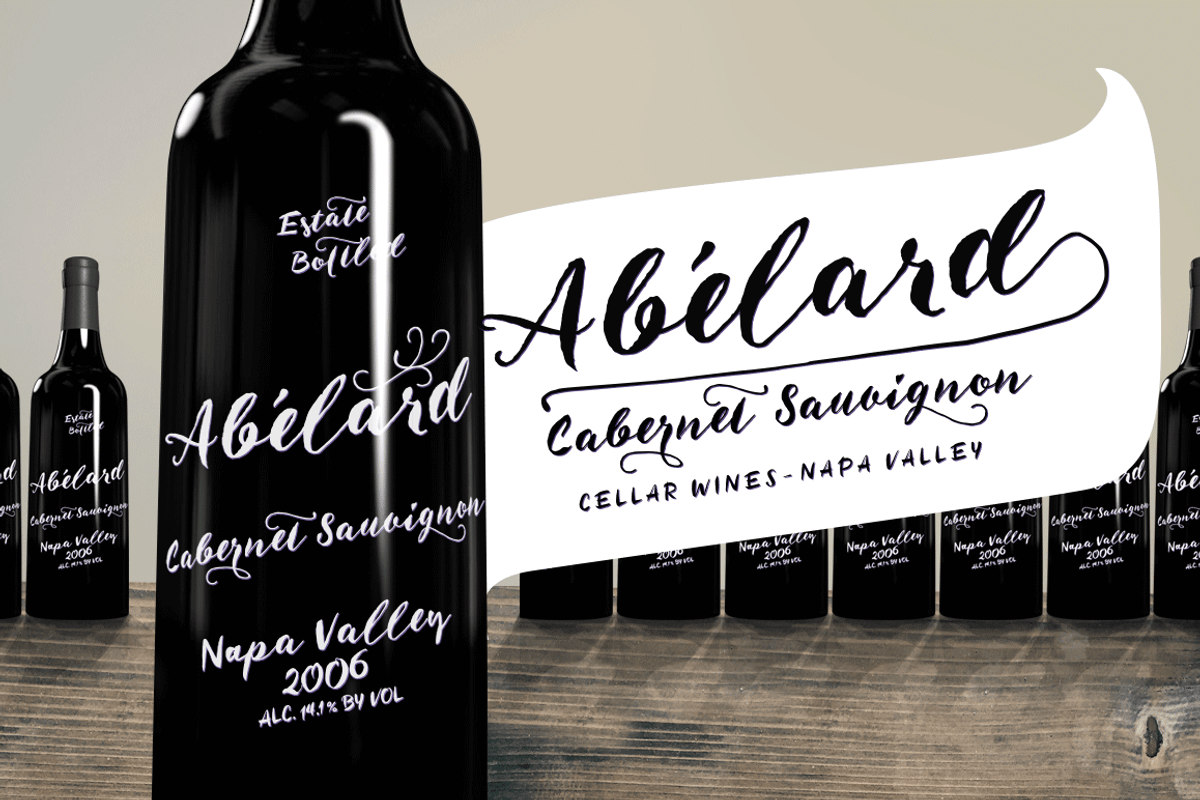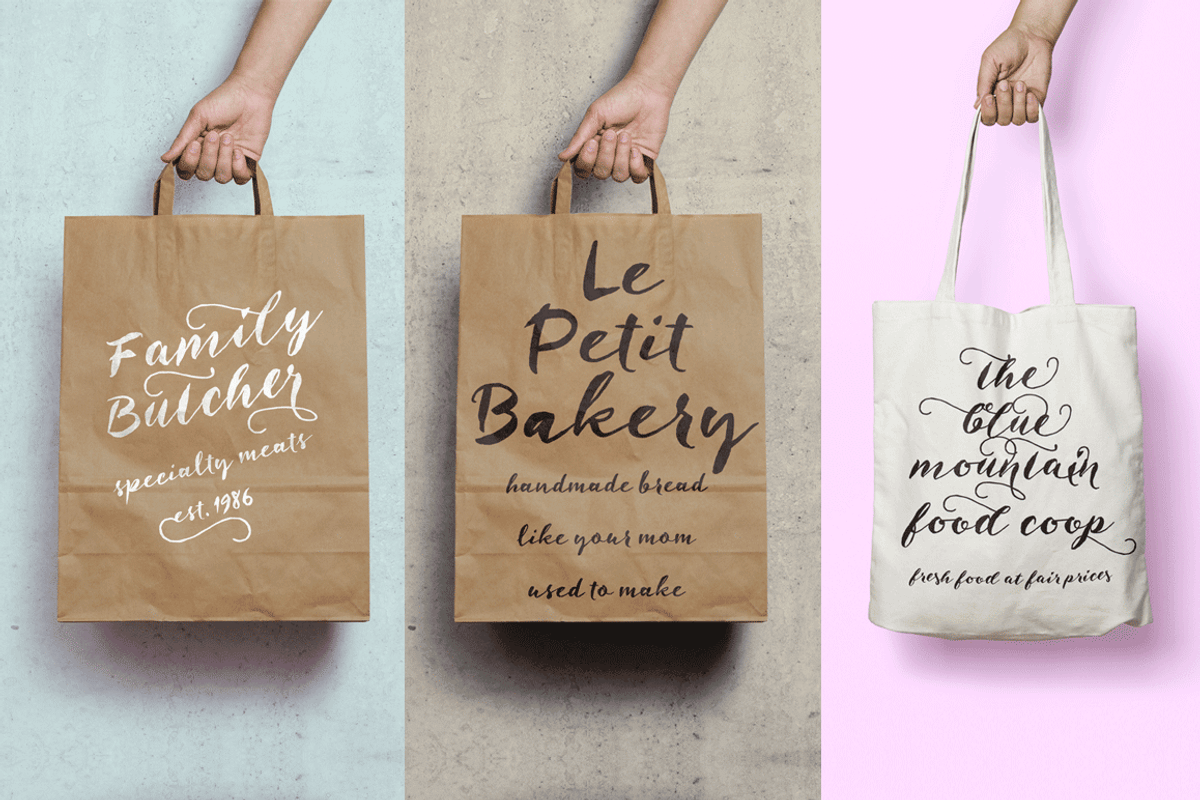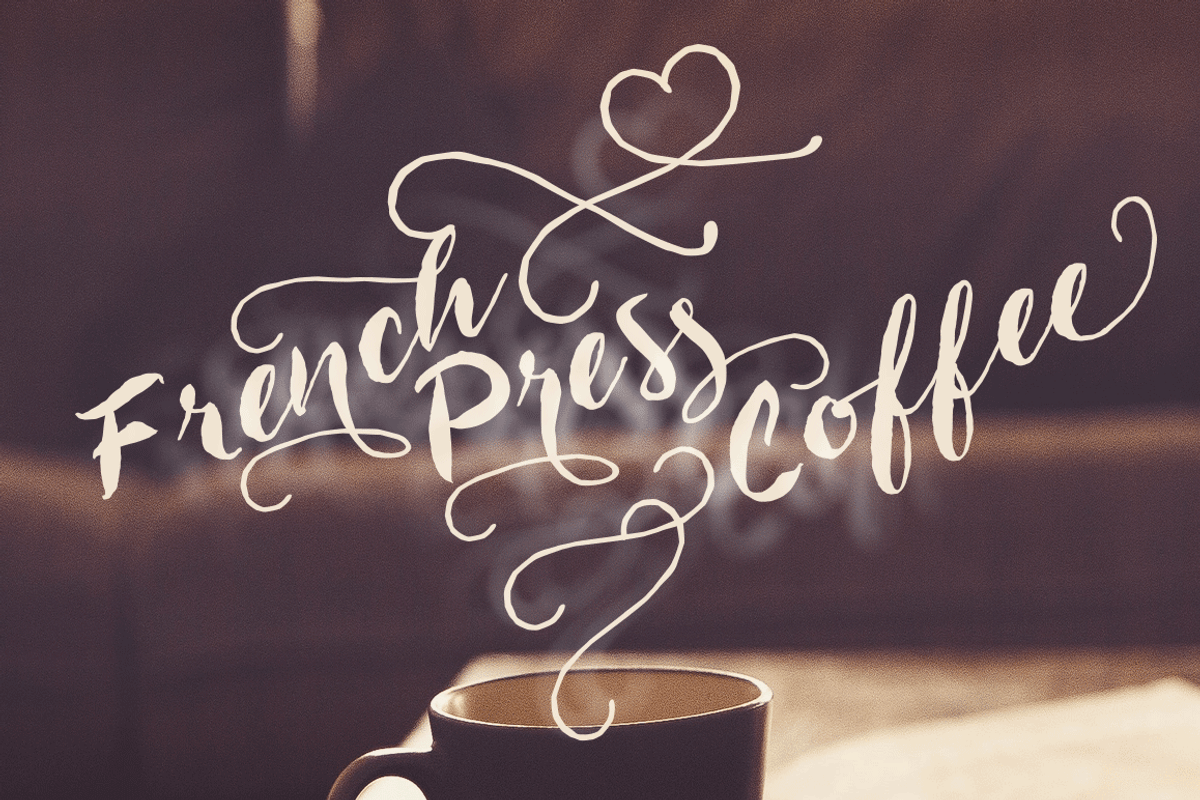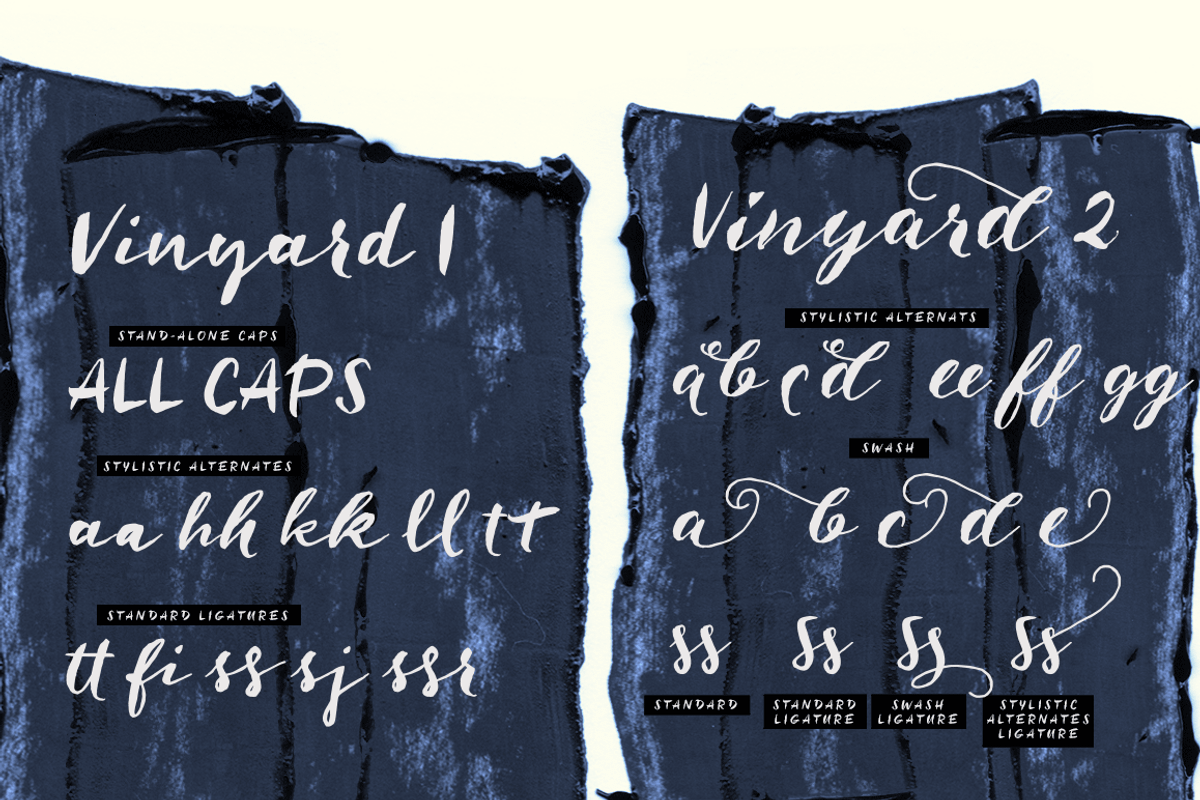
Beaujolais font pair + extras
Beaujolais font pair + extras by Fenotype is a font selected for branding, posters, packaging, typography.
- Beaujolais is equipped with OpenType features such as Automatic Ligature, Stylistic Alternates and Swash to make the experience soft and sil
Why Beaujolais font pair + extras is worth a look
Beaujolais font pair + extras by Fenotype fits naturally into Branding, posters, packaging, typography.